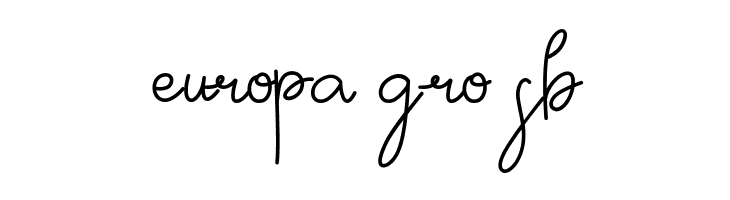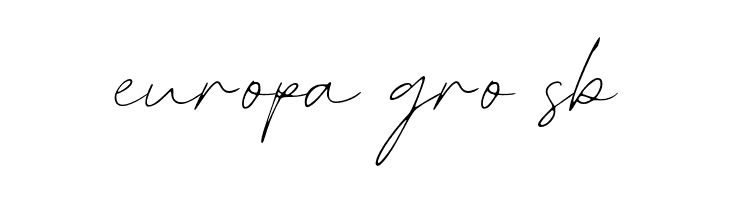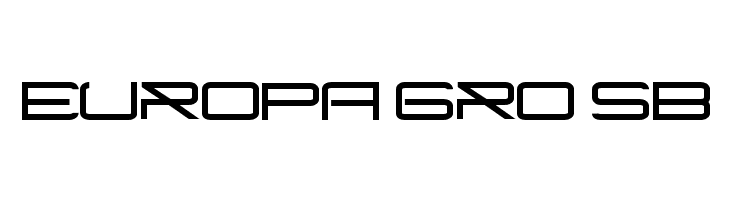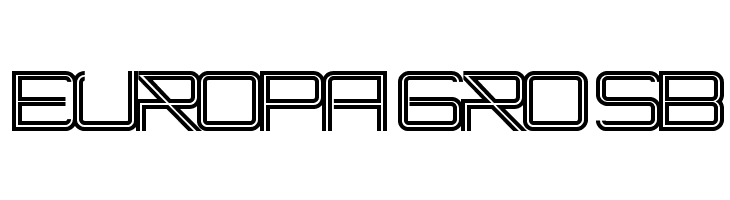
• ModernismShort
A sleek, geometric font with a futuristic and modern aesthetic.
• ModernismStroke
A modern, geometric font with a double-line stroke, ideal for futuristic designs.
• mohr
A bold, geometric font with a futuristic and impactful design.
• mohr
A bold, geometric font with circular motifs and unique cutouts.
• Monallesia Monogram
An elegant, decorative monogram font with heart motifs and cursive strokes.
• Monarchy Signature
An elegant, cursive script font with fluid, signature-like strokes.
• Monday July
A casual, handwritten cursive font with a flowing, elegant style.
• Monday Morning
( Fonts by Daymon Moore )
A playful, handwritten font with a casual and informal style.
• Monik Aprilia
A playful and whimsical handwritten font with fluid letterforms.
• Monika